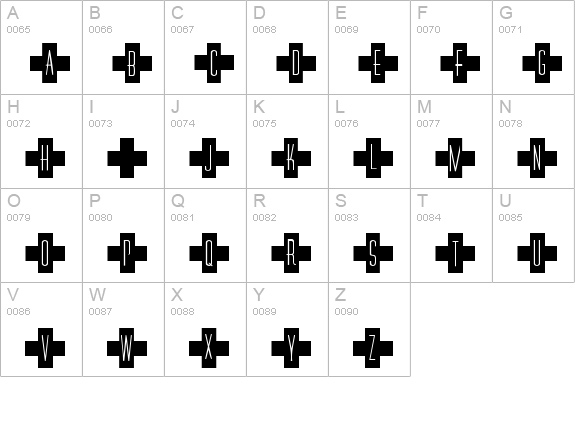
The 101! Red Cross font is a striking and bold display typeface that exudes strength and sophistication. With its clean lines and geometric shapes, this font is perfect for creating eye-catching headlines, posters, logos, and more. The sharp edges and strong presence of this font make it a standout choice for projects that demand attention. Best of all, the 101! Red Cross font is available for free download at FontsMarket.com. Whether you're a designer looking to add a unique touch to your work or a business owner in need of a powerful branding element, this font is sure to make a lasting impression. Don't miss out on the opportunity to enhance your projects with this modern and impactful typeface. Download the 101! Red Cross font today and unleash the full potential of your designs!